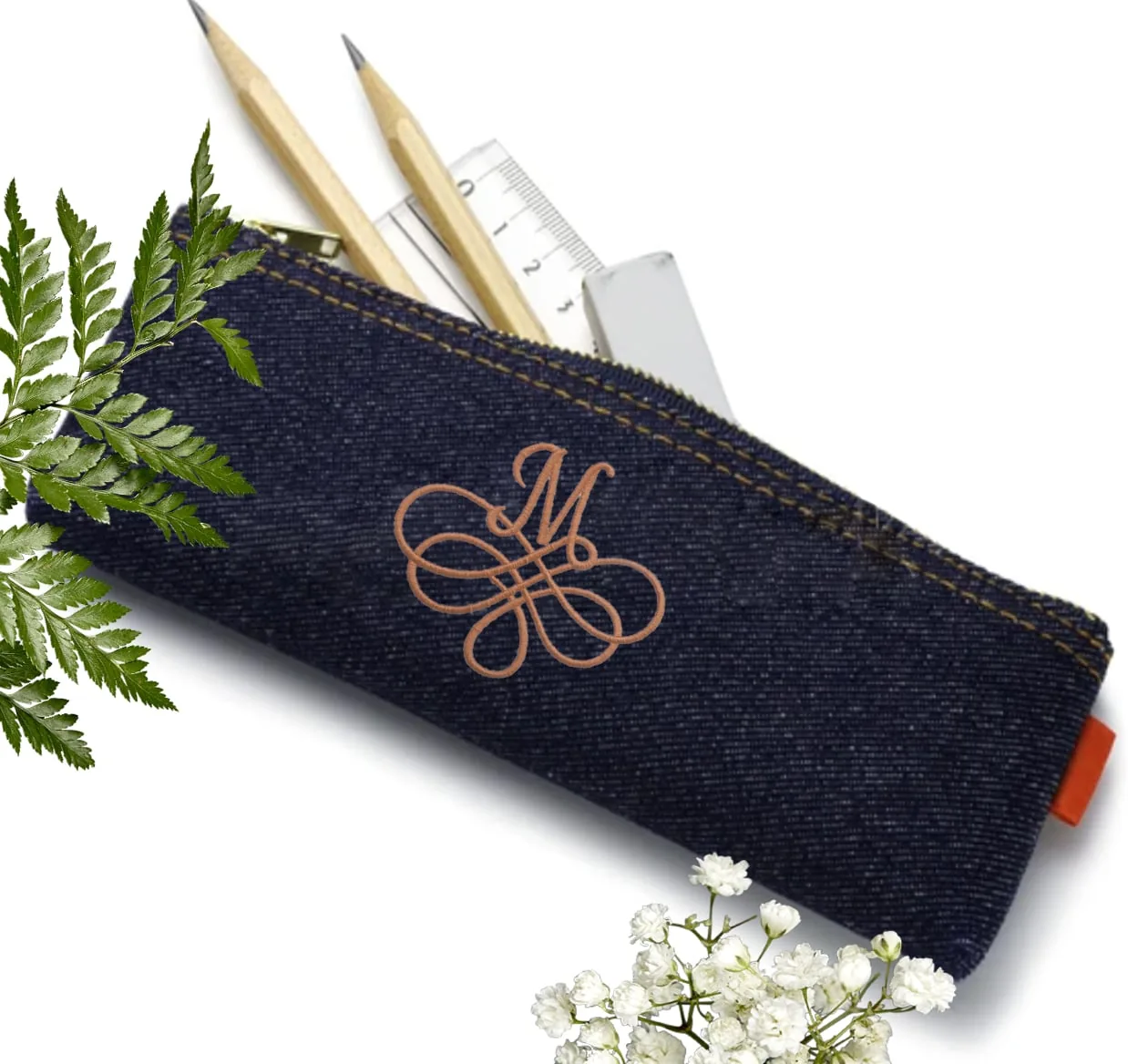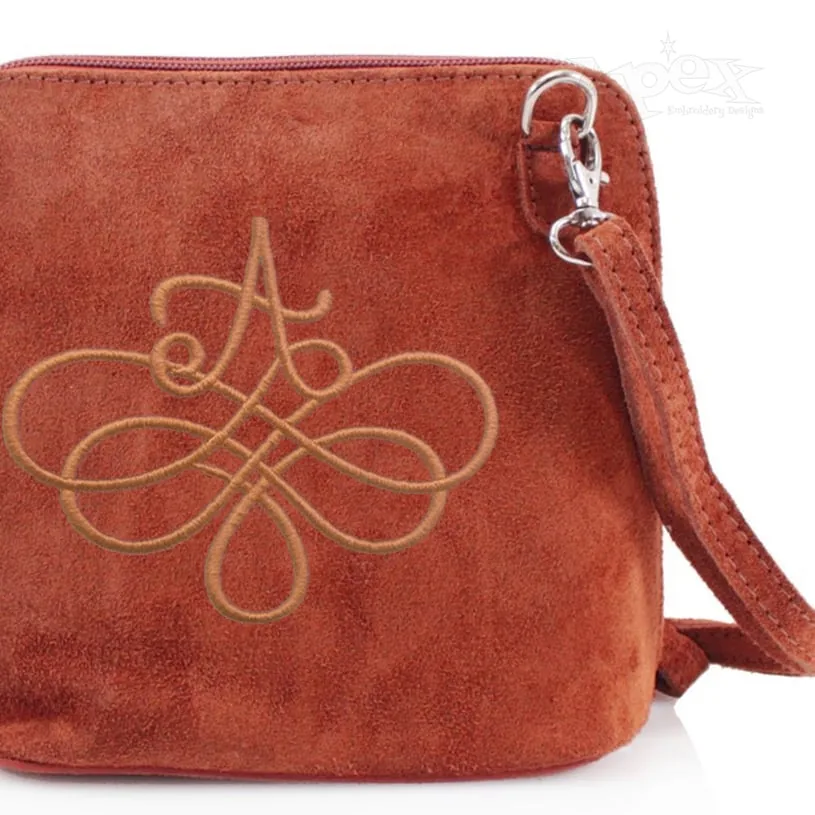
Elegant Scroll Embroidery Font
Born from an appreciation for the romantic flourish of copperplate script and eighteenth-century calligraphic flourishes, the Elegant Scroll Embroidery Font brings an undeniable sense of occasion to the embroidery frame. As digitizers, we set out to capture the breathtaking balance between delicate hairlines and bold, sculptural swells—transforming simple thread into a dance of satin ribbons across woven fabric. Whether stitched in tone-on-tone silk or vibrant contrasting cotton, each letterform delivers an air of stately refinement, turning everyday textiles into cherished heirlooms.
This collection provides exceptional versatility by including two complete, beautifully balanced alphabets designed to suit diverse design scales and aesthetics:
- Simple Tails Alphabet: Features streamlined, understated entry and exit flourishes in 2", 3", 4", and 5" heights.
- Fancy Tails Alphabet: Features dramatic, theatrical sweeping scrollwork in 2", 3", 4", 5", and 6" heights.
Project Ideas for Elegant Scroll Embroidery Font
- Luxury Table Linens: Stitch a crisp, single-initial monogram using the Fancy Tails set onto mitered-corner linen cocktail napkins or a hemstitch dining runner.
- Heirloom Bedding: Elevate sateen duvet covers, euro shams, and crisp percale sheets with an impressive 5-inch or 6-inch center monogram.
- Bridal Party Gifting: Personalize silk kimono robes, velvet cosmetic bags, and bridal slippers with delicate, romantic initials.
- Bespoke Resort Wear: Embroider relaxed linen button-downs, cover-ups, or sun hats for an elevated coastal look.
- Canvas Totes & Weekend Duffles: Add timeless character to heavy canvas travel bags and personalized gifting items using the sturdy Simple Tails variation.
- Corner Diagonal: Angle initials at 45 degrees, approximately 1.5 to 2 inches from the hemline on dinner napkins, pocket squares, and heirloom handkerchiefs to showcase the flowing tail flourishes.
- Center Chest: Position centrally between the collar and pocket line on silk pyjama sets, dressing gowns, and plush bathrobes.
- Sleeve & Cuff: The 2-inch Simple Tails alphabet sits gracefully just above a French cuff or centered on a sleeve placket for understated tailored personalization.
- Pillow & Sham Flange: Position single monograms directly in the center of standard boudoir pillows or offset symmetrically on matched sham pairs.
Elegant Scroll Embroidery Font Craft & Letterform Details
Digitizing a calligraphic font requires much more than simply plotting outlines; it requires an intimate understanding of thread dynamics, tension, and light play. Every curve in the Elegant Scroll collection has been carefully calibrated with tailored stitch densities to prevent puckering while ensuring rich, opaque coverage. Transitions from slender flourishing loops to wide, stately stems feature micro-angled stitch directions that mimic the natural travel of a master penman’s nib. We integrated gentle, progressive underlays to provide adequate loft and foundation, allowing each satin stroke to float effortlessly over textured linens, heavy terrycloth, and fine woven batiste alike without sinking or losing its pristine edge.